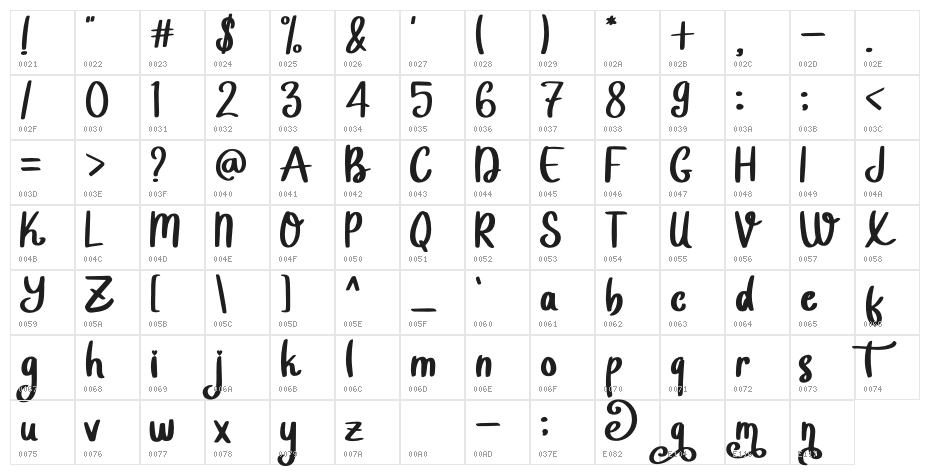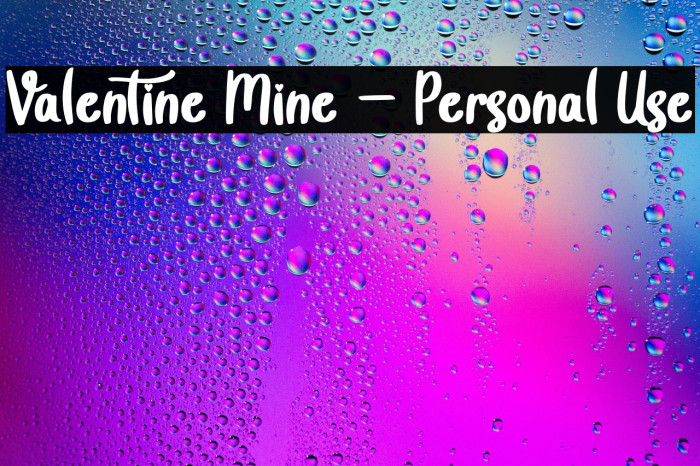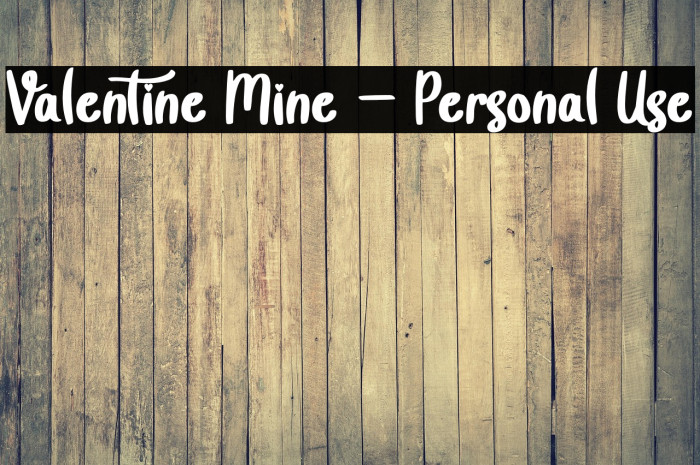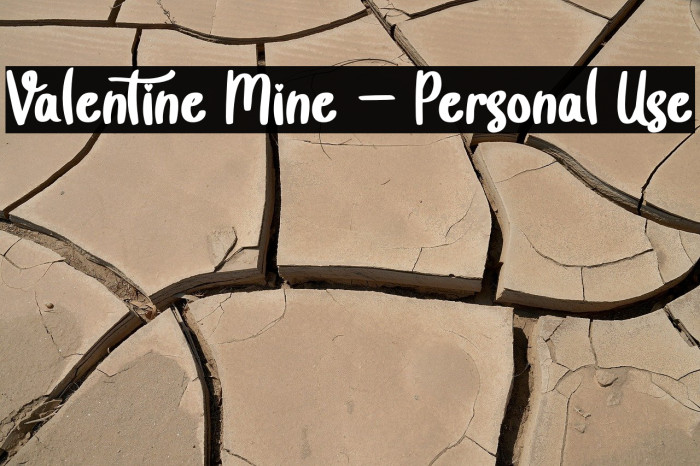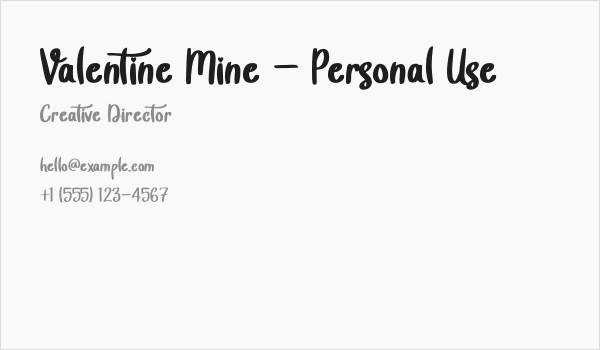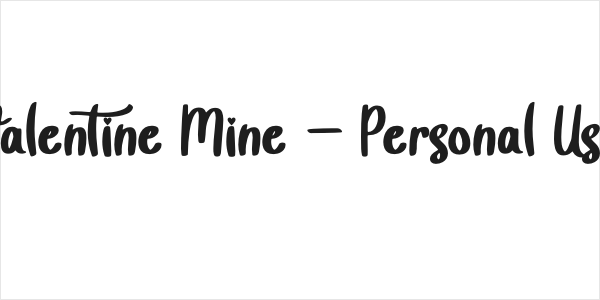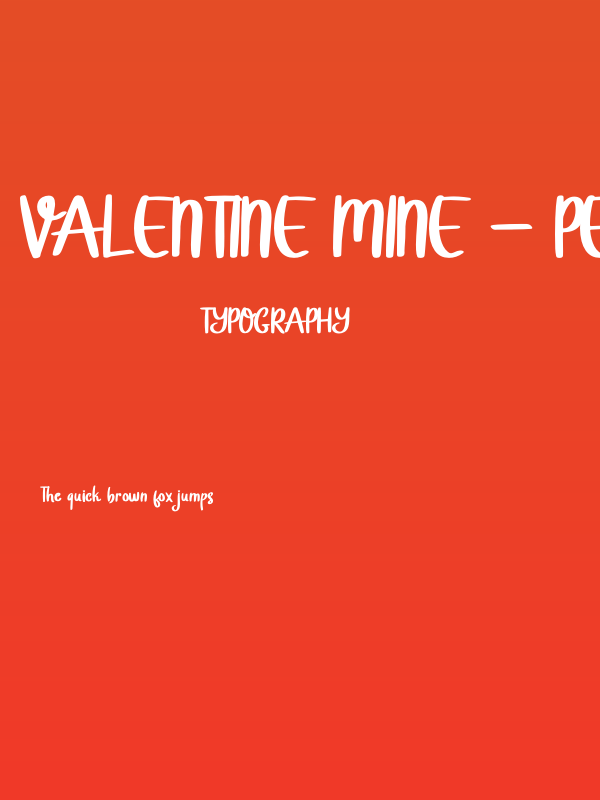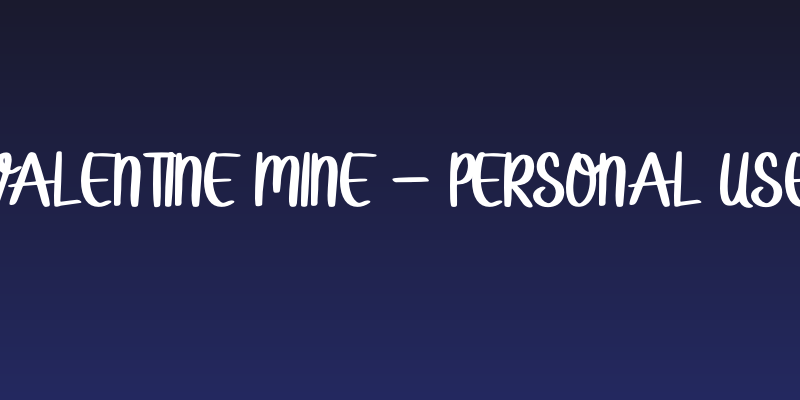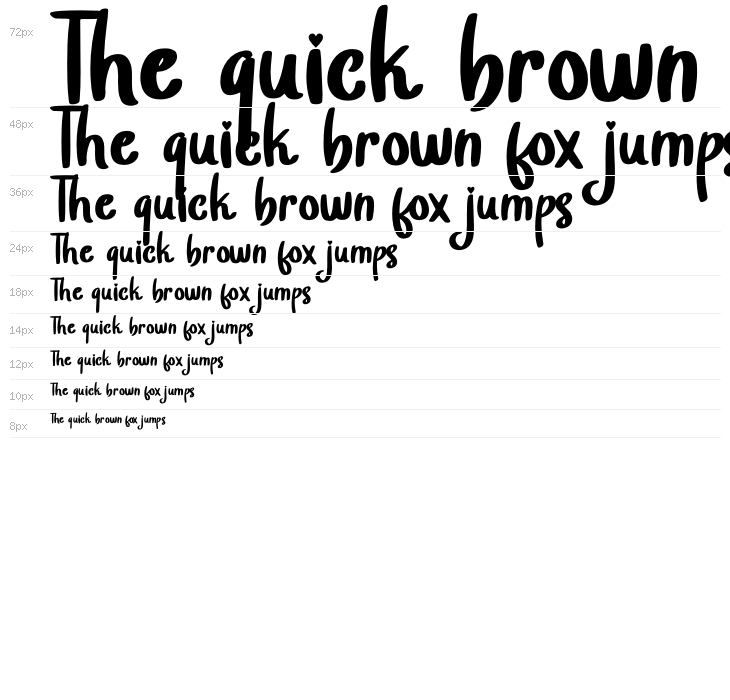
Valentine Mine - Personal Use Font
Valentine Mine - Personal Use Description
This playful and whimsical font features a handwritten style with a bold and expressive character. The uppercase letters are tall and slightly narrow, while the lowercase letters maintain a consistent flow with charming loops and curves. The numbers are equally dynamic, adding a touch of personality to any design. Special characters are creatively integrated, enhancing the font's overall appeal. The strokes are thick, providing a strong visual impact, making it suitable for eye-catching designs. Its unique style is perfect for projects that require a personal and friendly touch.
| Proposed Projects | Ideal for greeting cards, invitations, posters, and playful branding. |